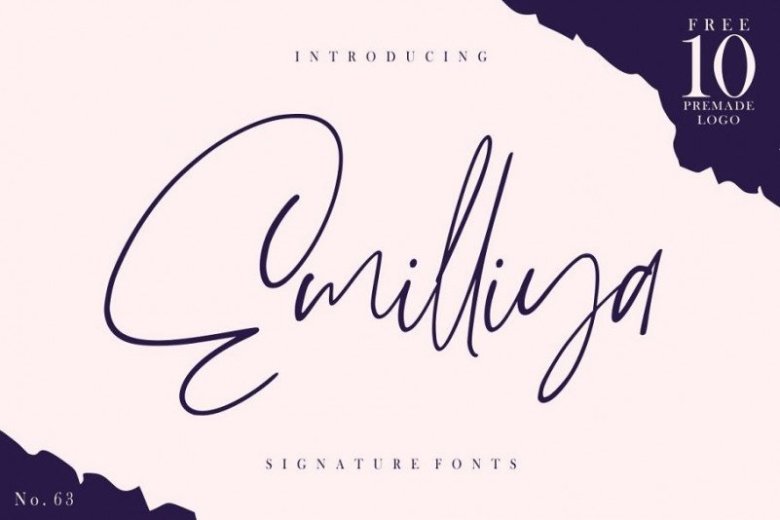
Emilliya Signature Font
Thank you for looking Emilliya Font. This font in the Handwritten style. Amazing hand lettering look attractive and natural! Every single letters have been carefully crafted to make your text looks beautiful. It’s designed and shared by Good Java Studio.
It’s a natural & modern handwritten font. I’ts Perfect for logo, invitation, stationery, wedding designs, social media posts, advertisements, product packaging, product designs, label, photography, watermark, special events or anything.